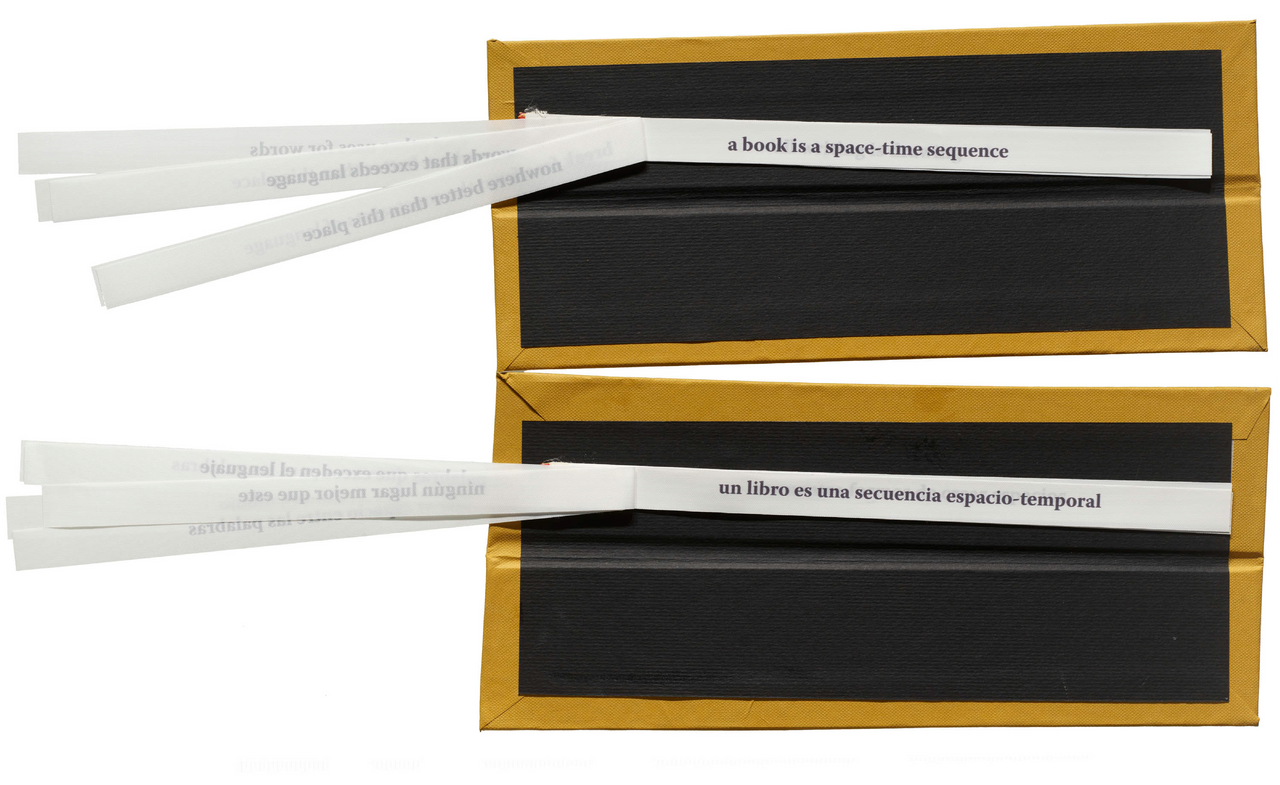
New Ideas in Visual Language features new Letterform Archive acquisitions from Curatorial Fellow Vivian Sming. This pop-up exhibition presents books and prints that highlight unusual letterforms, modular typography, unique and collaborative reading experiences, and contemporary artists using language in their work. Open during exhibition hours.